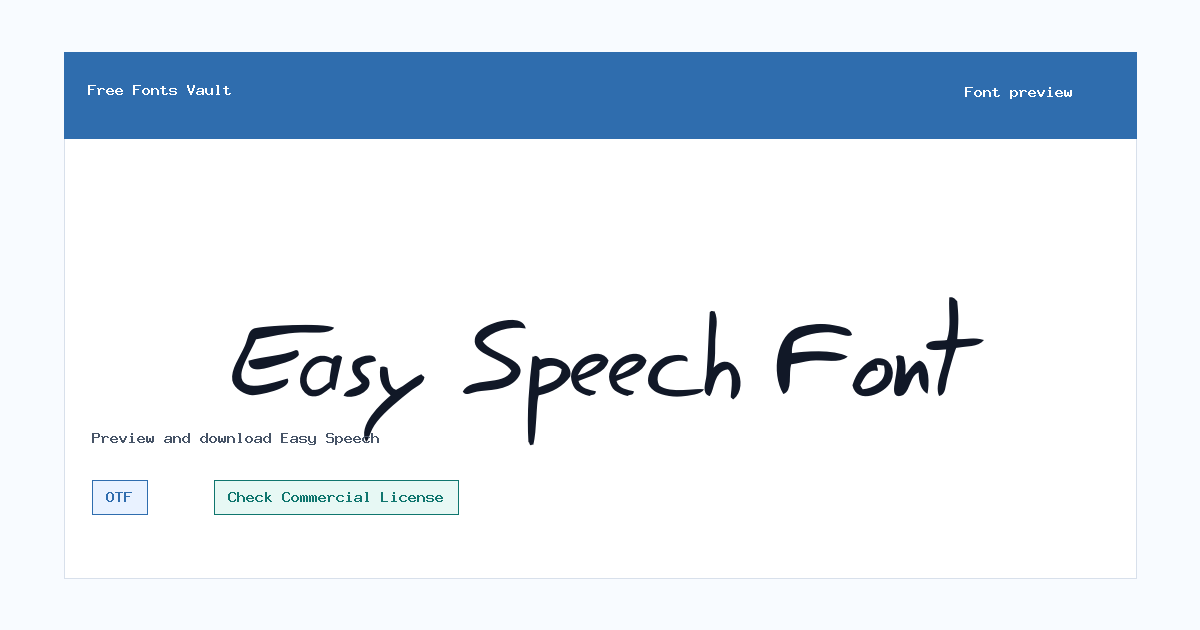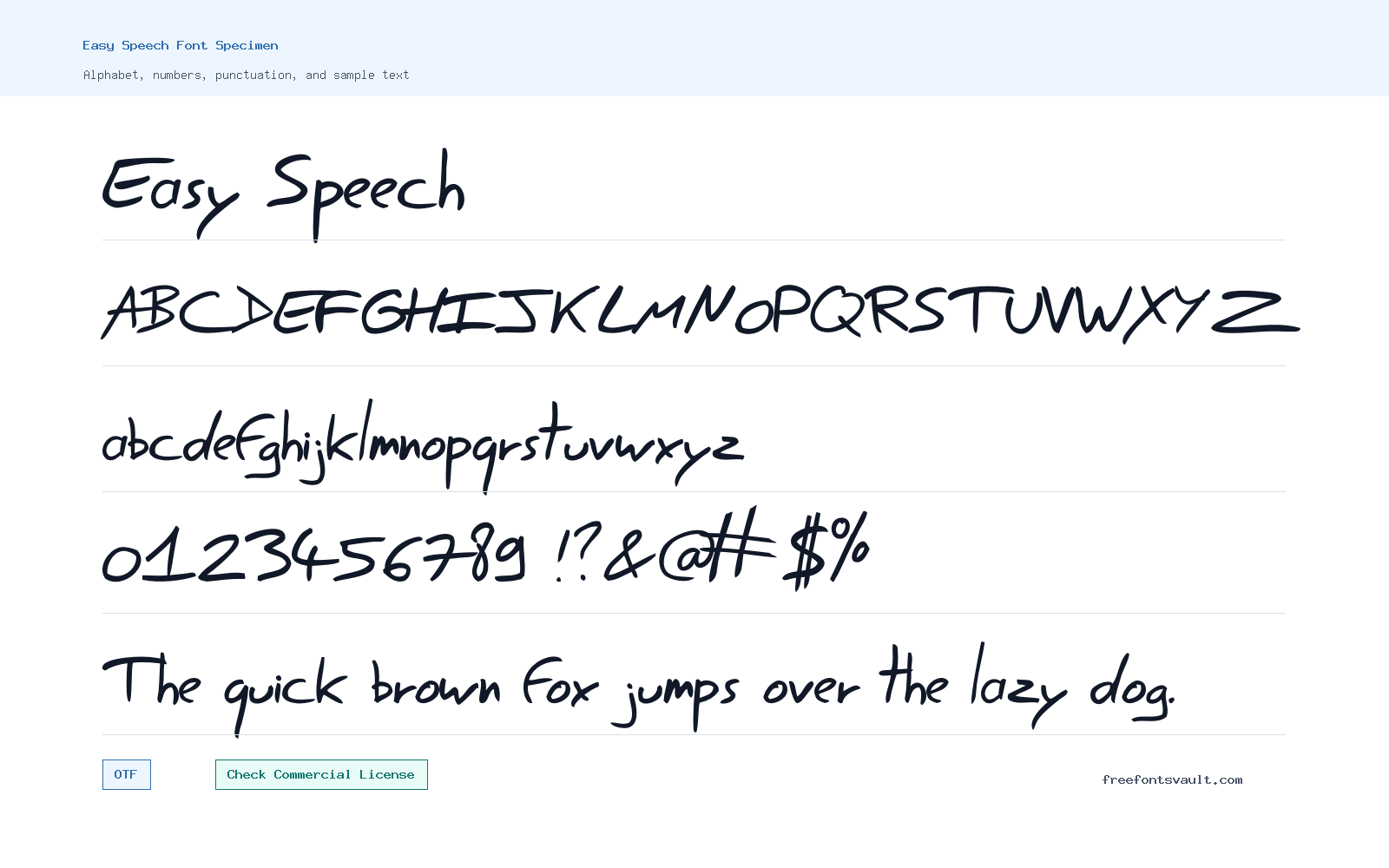
Easy Speech
Easy Speech Font
• Designer Jean-Jacques "Xoth" Morello
• Foundry Jean-Jacques "Xoth" Morello
Easy Speech is Jean-Jacques “Xoth” Morello’s loose handwritten display face. The letters lean and change width like quick marker writing, so the family feels conversational without imitating formal calligraphy.
What the reviewed file shows
The local specimen shows a distinctive open capital E, a tall looped lowercase f, long descenders on j and y, and visibly irregular joins. Uppercase letters are independent rather than connected, while lowercase words form a faster rhythm. Those details make the face useful for speech bubbles, informal labels and a short friendly name, but the uneven widths become tiring across a paragraph.
Use the preview with the exact phrase and punctuation you need. This build includes both cases, numerals and common punctuation, but a decorative handwritten face should not carry instructions, prices or accessibility-critical copy. Set the personality line in Easy Speech and pair it with a neutral sans serif for everything that must be scanned quickly.
Practical preview checks
Try a mixed-case greeting, a line with repeated letters, and a sentence containing j, f, y and punctuation. Check the long descenders against the line below. If words collide, increase line height rather than compressing the font.
Questions about Easy Speech
Is this the current Easy Speech release?
No. The inspected local file identifies itself as version 1.000 from the 2012 initial release. The author’s public note mentions a later expanded edition.
What is Easy Speech best for?
Short, informal lines such as labels, cards, classroom graphics and speech-bubble text. Use a simpler companion for paragraphs and interface copy.